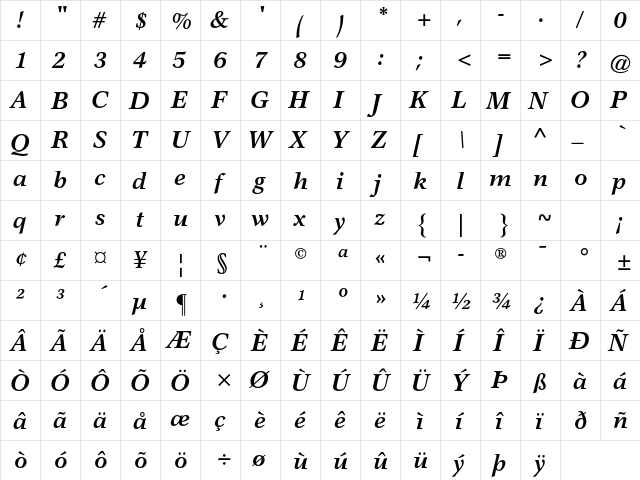
Garth Graphic Std Bold Italic
| Designer | John Matt, Renee LeWinter, Constance Blanchard |
Design Context for Garth Graphic Std Typeface
Garth Graphic Std offers clean, dependable letterforms without strong stylistic allegiance, making it a practical choice for designers who need flexibility. The dynamic lean of this cut emphasises speed and emphasis in any layout. Its bold stroke weight gives it real presence on the page.